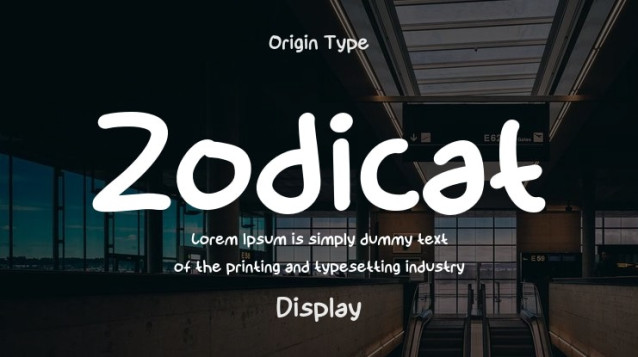
Zodicat Font is a simple and friendly handwritten font. Its natural and unique style makes it incredibly fitting to a large pool of designs. The only limit is your imagination!